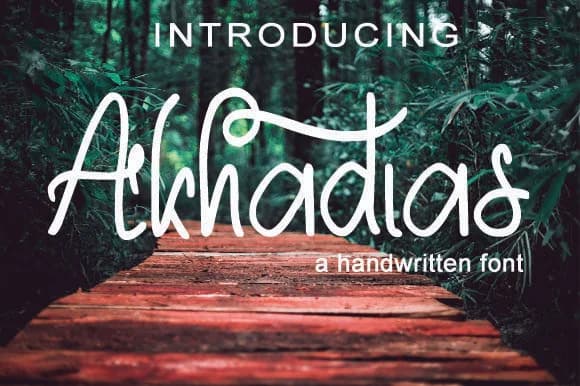
Akhadias by husnant9 is a flowing handwritten script featuring graceful curves and refined letterforms that bring sophisticated character to any creative project. This typeface excels at creating wedding invitation suites where you need distinctive typography that feels genuinely personal yet professionally polished, making each piece feel intentional and memorable. Beyond special occasions, Akhadias works beautifully on luxury cosmetic packaging and premium stationery design where that handcrafted aesthetic communicates quality and meticulous attention to detail that discerning audiences recognize.
The script's expressive, flowing nature makes it particularly effective for boutique product labels, artisanal packaging design, and personalized branding projects where you want to convey authenticity without sacrificing refinement. Whether you're designing custom greeting cards, curating Etsy shop packaging collections, creating branded social media graphics, or developing bespoke label systems for independent brands, Akhadias delivers genuine character and charm that resonates with audiences seeking quality and individuality in their designs. The smooth, natural transitions between letters create a coherent and readable appearance across different scales and applications, ensuring your designs maintain consistent visual impact whether applied to elegant invitations, delicate product packaging, or digital brand presentations. Find Akhadias Font on Creative Fabrica and add this sophisticated handwritten style to your complete design toolkit.
Akhadias Font is a script font that shines as a display or heading face. Pair it with a clean sans-serif or serif font for body text β the contrast creates a clear hierarchy while the two styles stay balanced and easy to read.
Akhadias Font